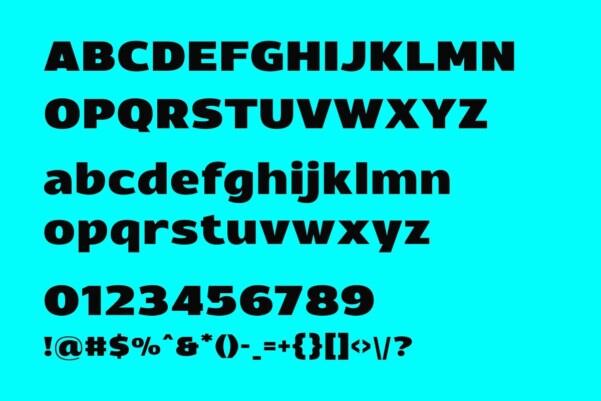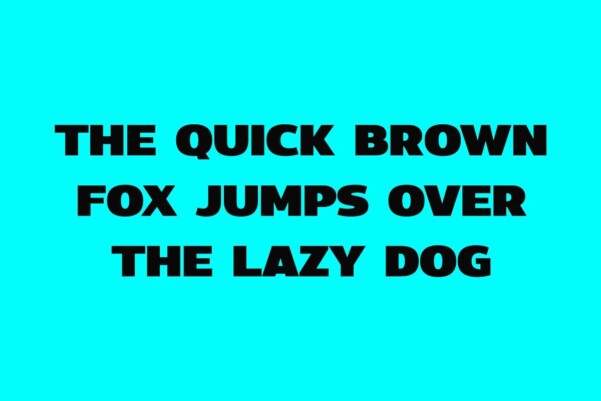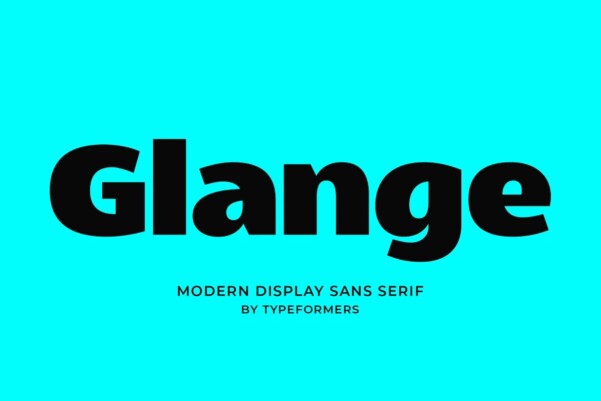
Glange Font
Glange Font – Modern Display Sans Serif. Glange is a modern and simple font, best used as a display for headings, logos, branding, magazines, product packaging and invitations.